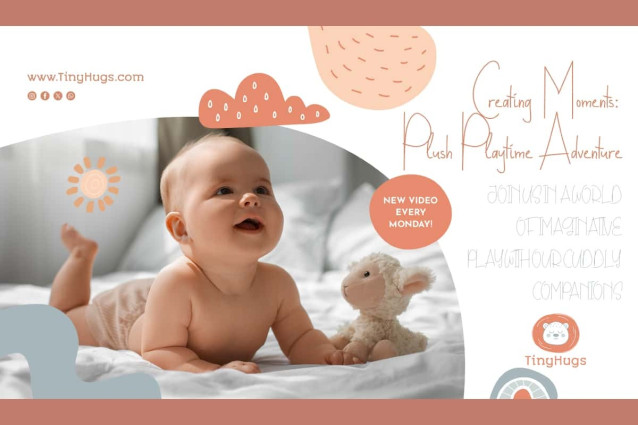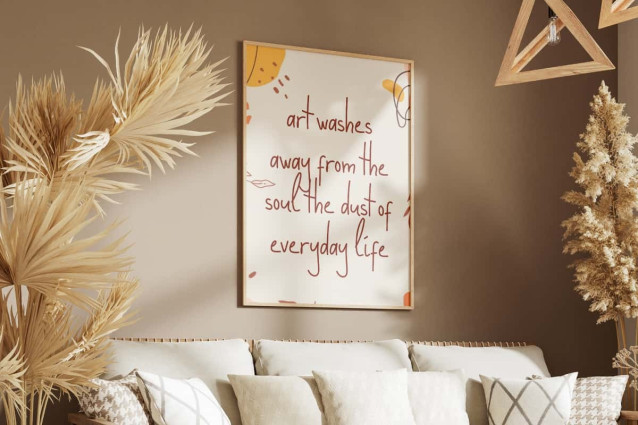
Will Never Be Font is a casual and children monoline script display font that also includes some ligatures (double letter combinations) to help the letters flow more naturally and give you more layout options. Perfect for banners, blogs, brochure, calendar, headers, invitation, logos, mockup, quotes, screen printing, social media design post, stationery, tag label, template, title, website, and many more.
Will Never Be Font is a very versatile typeface, having a clean and refined look, ready to add a warm and fun personal touch to your designs. Useful for accessories and gift, advertising, author, bakery, cafes, clothing brand, film, graphic designer, handicraft, home furniture, interior design, photography, publisher, restaurants, toy store, and much more.
Will Never Be Font comes with a complete set of Uppercase and Lowercase Basic Characters, Numbers, Punctuation, Symbol and Ligatures. It is supported with multilingual characters and ready to use both on Windows machine or Mac with simple installations. It’s tested to work well in the Adobe Apps (Illustrator, Adobe InDesign, Adobe Photoshop) CorelDraw, and others. PUA Encode Characters means you can access all the characters easily – Fully accessible without additional design software.